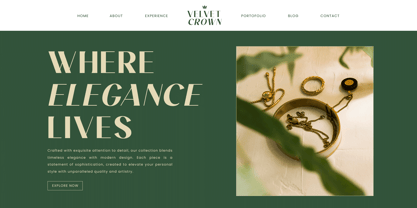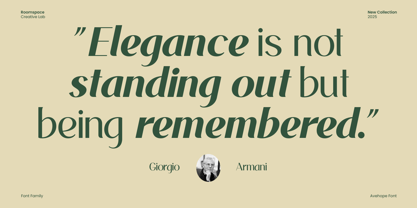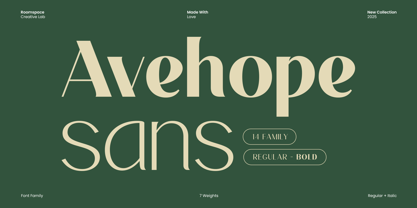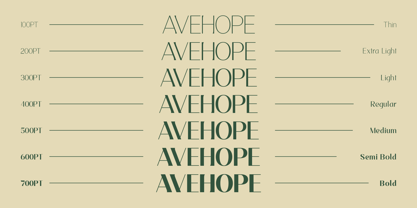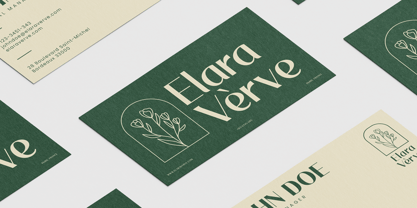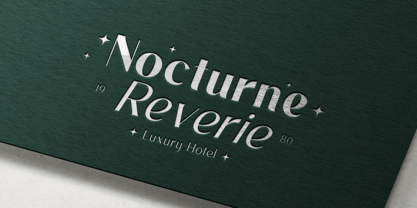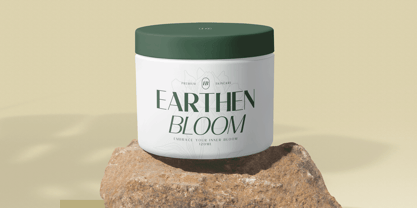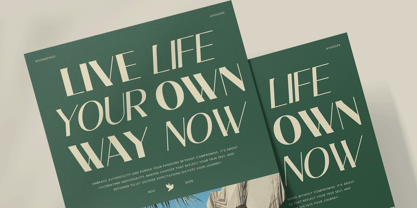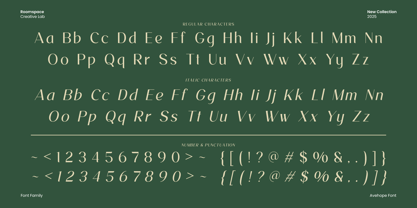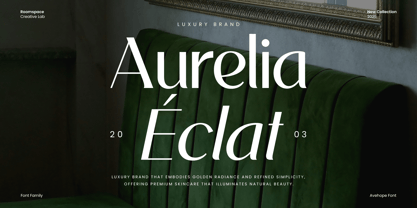
Avehope
by Jafar07
The Avehope Font Family was designed by Bakhrudin Ja'far and published by Jafar07. Avehope contains 14 styles and family package options. More about this family
Avehope Sans is a modern geometric sans-serif family featuring 14 fonts across 7 weights and matching italics. Designed for professional readability and precision, it delivers architectural structure and aesthetic balance ideal for modern branding, editorial, and UI design. Perfectly spaced and versatile, Avehope Sans performs elegantly in both print and digital media. Specifications Weights: Thin, Extra Light, Light, Regular, Medium, Semi Bold, Bold + Italics Language Support: Western & Central Europe Features: Multilingual, professional kerning, clean geometry Ideal For: Branding, editorial, UI, signage, corporate identity